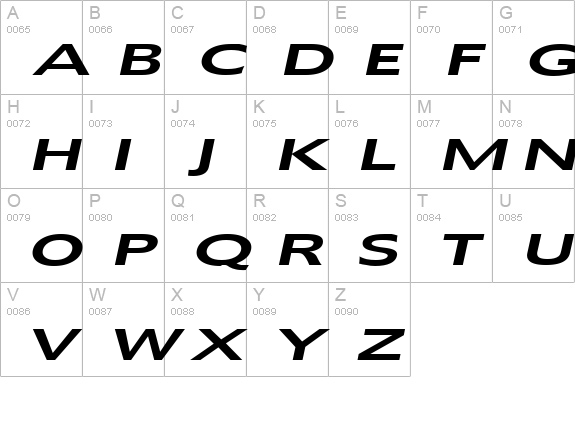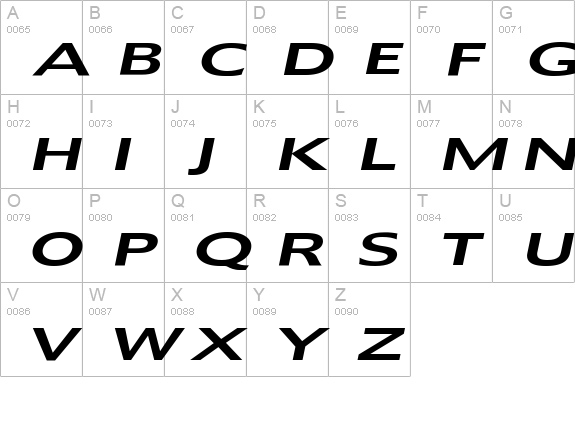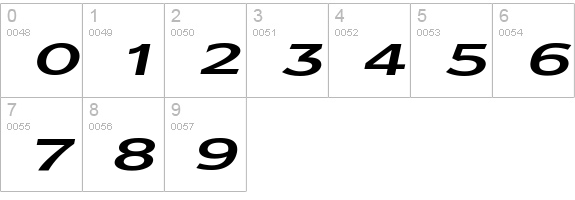
Adams Extended Italic is a distinctive, extended-width, italic variant in the Adams typeface family \xE2\x80\x94 well suited to design and typography projects.
Adams Extended Italic font exudes elegance and sophistication with its sleek and elongated letterforms. The italicized slant adds a touch of modern flair to this classic typeface, making it perfect for projects that require a refined and stylish look. The extended characters provide a unique and eye-catching appearance that will make your designs stand out. Best of all, Adams Extended Italic font is free to download at FontsMarket.com. This means you can elevate your projects with this beautiful typeface without any cost. Whether you're working on branding, editorial design, or any other creative project, Adams Extended Italic font is sure to add a touch of class and sophistication. Download it today and take your designs to the next level!